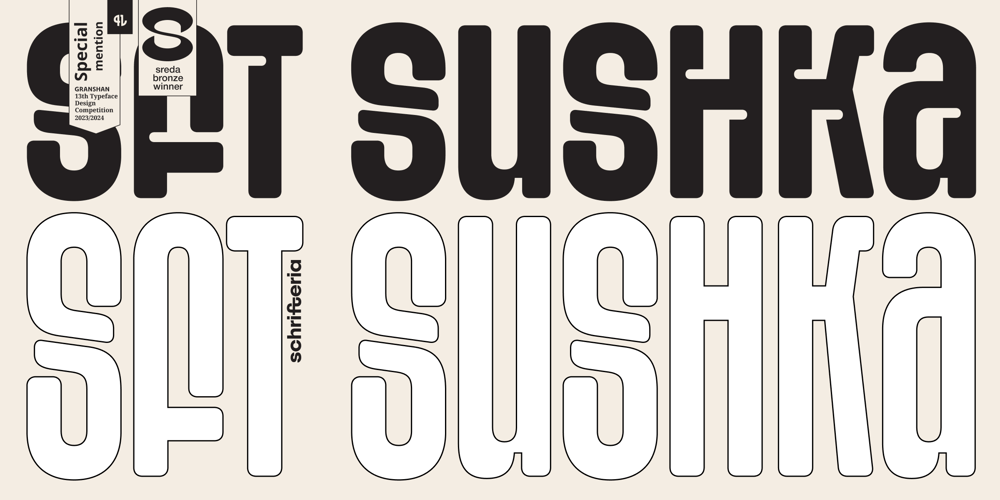
SFT Sushka Font Family was designed by Yulia Gonina and published by Schrifteria Foundry. SFT Sushka contains 22 styles and family package options. About SFT Sushka is a narrow headline typeface that will look particularly good on the packaging of something delicious.10 different widths and a variable font make it possible to fit the font into various limited spaces. Soft shapes and rounded notches make SFT Sushka cozy, friendly, and appetizing. But if you need a more concise and readable version, the Flat Subfamily without notches is available for you.The family forms a gradient from very narrow and quirky to wider, softer, and more fluffy styles. Therefore, the variation is not just in width and thickness, but in the overall mood as well.You can use the variable font without any concerns about unexpected intersections in the letters! Its structure is no different from static fonts.And last but not least, SFT Sushka allows for a very tight line spacing even in languages with diacritics!SFT Sushka has wide language support: 200+ Latin and 60+ Cyrillic languages.Language supportLatin: Abenaki, Afaan-Oromo, Afar, Afrikaans, Albanian, Alsatian, Amis, Anuta, Aragonese, Aranese-Aromanian, Arrernte, Arvanitic (Latin), Asturian, Atayal, Aymara, Azerbaijani, Bashkir-(Latin), Basque, Belarusian (Latin), Bemba, Bikol, Bislama, Bosnian, Breton, Cape-Verdean-Creole, Catalan, Cebuano, Chamorro, Chavacano, Chichewa, Chickasaw, Cimbrian, Cofán, Cornish, Corsican, Creek, Crimean Tatar (Latin), Croatian, Czech, Danish, Dawan, Delaware, Dholuo, Drehu, Dutch, English, Esperanto, Estonian, Faroese, Fijian, Filipino, Finnish, Folkspraak, French, Frisian, Friulian, Gagauz (Latin), Galician, Ganda, Genoese, German, Gikuyu, Gooniyandi, Greenlandic (Kalaallisut), Guadeloupean-Creole, Gwich’in, Haitian-Creole, Hän, Hawaiian, Hiligaynon, Hopi, Hotcąk (Latin), Hungarian, Icelandic, Ido, Igbo, Ilocano, Indonesian, Interglossa, Interlingua, Irish, Istro-Romanian, Italian, Jamaican, Javanese-(Latin), Jèrriais, Kaingang, Kala-Lagaw-Ya, Kapampangan (Latin), Kaqchikel, Karakalpak-(Latin), Karelian (Latin), Kashubian, Kikongo, Kinyarwanda, Kiribati, Kirundi, Klingon, Kurdish-(Latin), Ladinlatinlatino-sine-Flexione, Latvian, Lithuanian, Lojban, Lombard, Low-Saxon, Luxembourgish, Maasai, Makhuwa, Malay, Maltese, Manx, Māori, Marquesan, Megleno-Romanian, Meriam-Mir, Mirandese, Mohawk, Moldovan, Montagnais, Montenegrin, Murrinh-Patha, Nagamese-Creole, Nahuatl, Ndebele, Neapolitan, Ngiyambaa, Niuean, Noongar, Norwegian, Novial, Occidental, Occitan, Onĕipŏt, Oshiwambo, Ossetian (Latin), Palauan, Papiamento, Piedmontese, Polish, Portuguese, Potawatomi, Q’eqchi’, Quechua, Rarotongan, Romanian, Romansh, Rotokas, Sami-(Inari-Sami), Sami (Lule-Sami), Sami (Northern-Sami), Sami (Southern-Sami), Samoan, Sango, Saramaccan, Sardinian, Scottish-Gaelic, Serbian-(Latin), Seri, Seychellois-Creole, Shawnee, Shona, Sicilian, Silesian, Slovak, Slovenian, Slovio-(Latin), Somali, Sorbian (Lower-Sorbian), Sorbian (Upper-Sorbian), Sotho (Northern), Sotho-(Southern), Spanish, Sranan, Sundanese (Latin), Swahili, Swazi, Swedish, Tagalog, Tahitian, Tetum, Tok-Pisin, Tokelauan, Tongan, Tshiluba, Tsonga, Tswana, Tumbuka, Turkish, Turkmen-(Latin), Tuvaluan, Tzotzil, Uzbek (Latin), Venetian, Vepsian, Volapük, Võro, Wallisian, Walloon, Waray-Waray, Warlpiri, Wayuu, Welsh, Wik-Mungkan, Wiradjuri, Wolof, Xavante, Xhosa, Yapese, Yindjibarndi, Zapotec, Zarma, Zazaki, Zulu, Zuni.Cyrillic: Adyghe, Akhvakh, Aleut (Cyrillic), Altaic, Andi, Archi, Avar, Bashkir, Belarusian (Cyrillic), Besermyan, Bosnian (Cyrillic), Bulgarian (Cyrillic), Buryat, Chechen (Cyrillic), Chukchi, Chulym, Chuvash, Dargwa, Dungan, Enets, Even (Lamut), Gagauz, Godoberi, Ingush, Kabardino-Cherkess, Karaim, Karakalpak, Karata (Karata-Tukita), Karelian, Kazakh (Cyrillic), Ket, Kildin Sámi, Kirghiz, Komi-Zyrian, Koryak, Kumyk, Lak, Lezgian, Macedonian, Moldavian (Cyrillic), Mongolian, Mordvin-moksha, Nanai, Nganasan, Oroch, Ossetian, Russian, Rusyn, Saami, Serbian (Cyrillic), Soyot-Tsaatan, Tabasaran, Tadzhik, Tatar Volgaic, Tindi, Touva, Tsez, Turkmen (Cyrillic), Udege, Udmurt, Uighur (Cyrillic), Ukrainian, Ulch, Uzbek (Cyrillic), Veps, Yukagir.